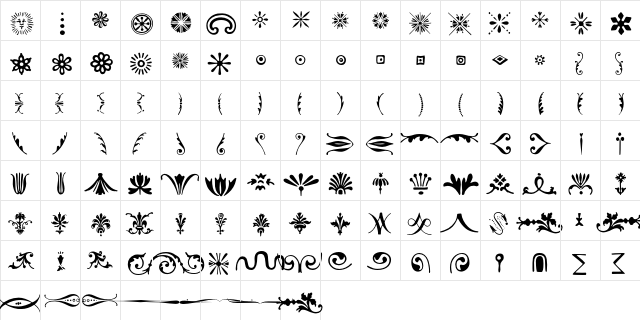
Bodoni Ornaments ITC Regular
Design Context for Bodoni Ornaments ITC Typeface
Bodoni Ornaments ITC brings ornamental detail and strong personality to headlines and identities, where visual impact matters more than quiet functionality.
Font Pairing: Pair with a clean neutral sans-serif for body copy to let Bodoni Ornaments ITC's character lead without overwhelming the composition.
Pro Tip: Use Bodoni Ornaments ITC exclusively at display sizes — it was designed to be seen, not read at length. Let a neutral companion handle body copy.